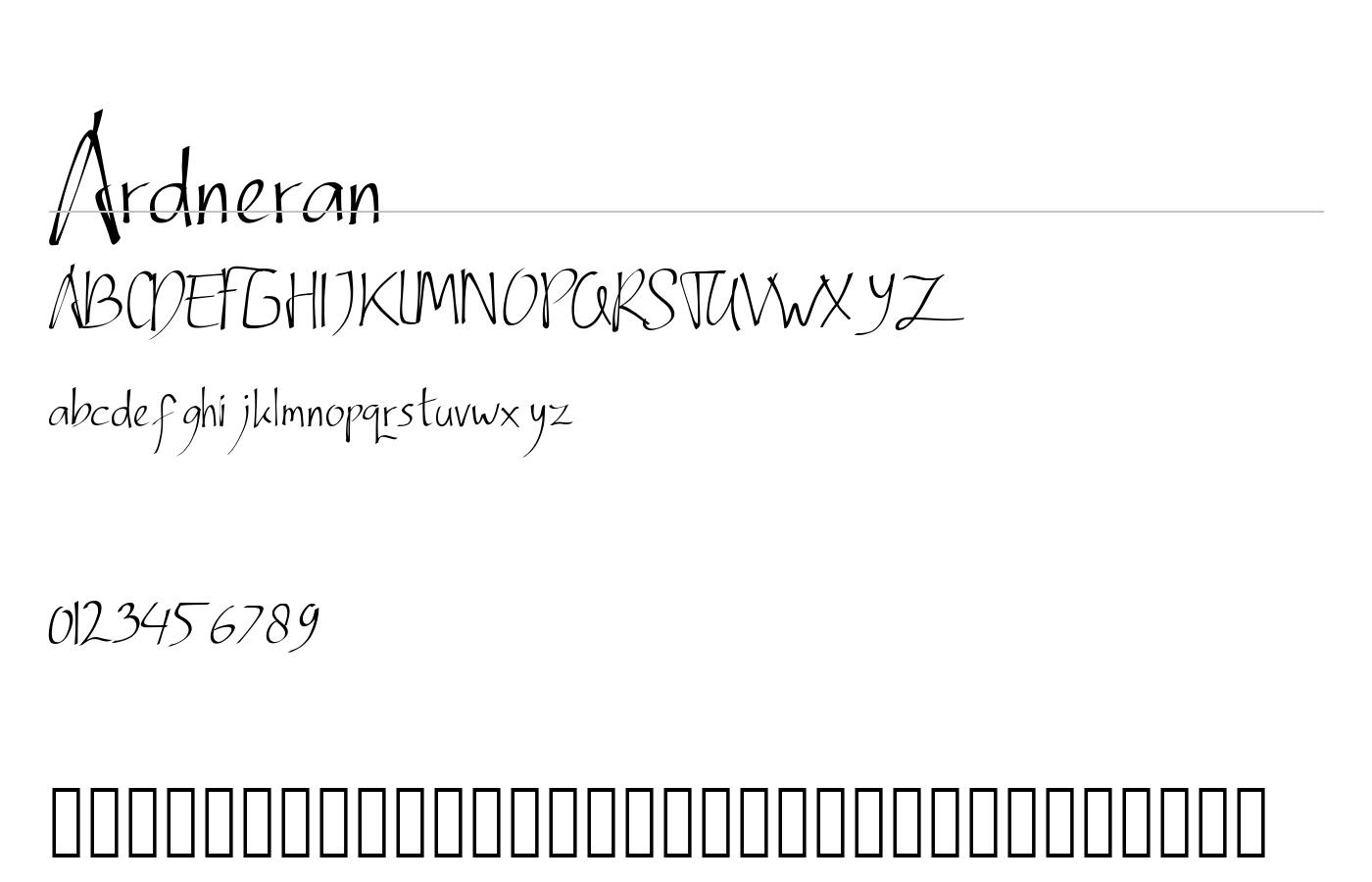
Ardneran is a delicate, handwritten-style font characterized by its thin, wispy strokes and tall, narrow letterforms that convey a sense of elegance and artistic flair. Its unique, slightly irregular shapes give it a whimsical and personal feel, making it ideal for creative projects, invitations, and branding that seeks a refined yet approachable aesthetic. This font works best in display settings where its intricate and airy style can be appreciated without sacrificing readability.
Ardneran Font